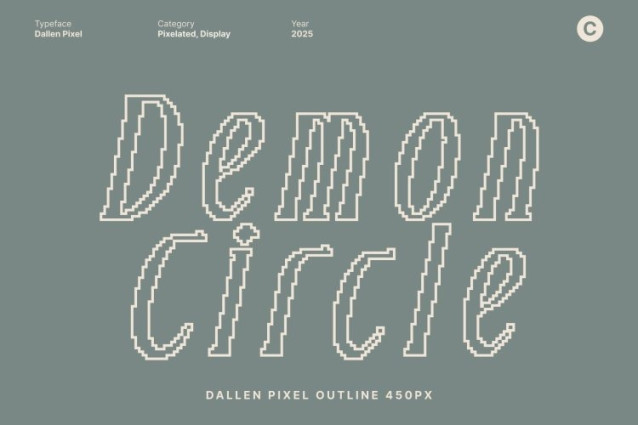
Dallen Pixel Font
Dallen Pixel Font This font blends the iconic charm of Art Deco design with the pixel styling, creating a refined yet modern display typeface. Its slim, streamlined forms echo the glamour and geometric precision of early 20th-century design, while the pixelated execution adds a fresh, digital twist.
Condensed Uppercase Forms for Luxurious Impact
Featuring striking uppercase characters, this font presents a condensed structure that enhances visual impact while maintaining graceful proportions. Its clean lines and symmetrical contours project a sense of sophistication, making it especially effective in decorative themes, upscale branding, and editorial compositions that prioritize clarity and style.
Perfect for Luxury Branding and High-End Design
Whether you’re crafting a premium logo, a sleek editorial headline, or refined packaging, this font elevates every project with its classic-meets-digital personality. The Art Deco influence delivers elegance and prestige, while the pixel aesthetic reinforces a unique, modern digital branding approach perfect for projects that require both heritage charm and contemporary flair.
Versatile for Decoration, Editorial, and Digital Themes
This font adapts beautifully across various design needs including luxury branding, high-end packaging, digital campaigns, posters, and decorative layouts. Its fusion of geometric Art Deco forms and pixel precision offers a distinctive visual language that stands out gracefully in both print and digital environments.